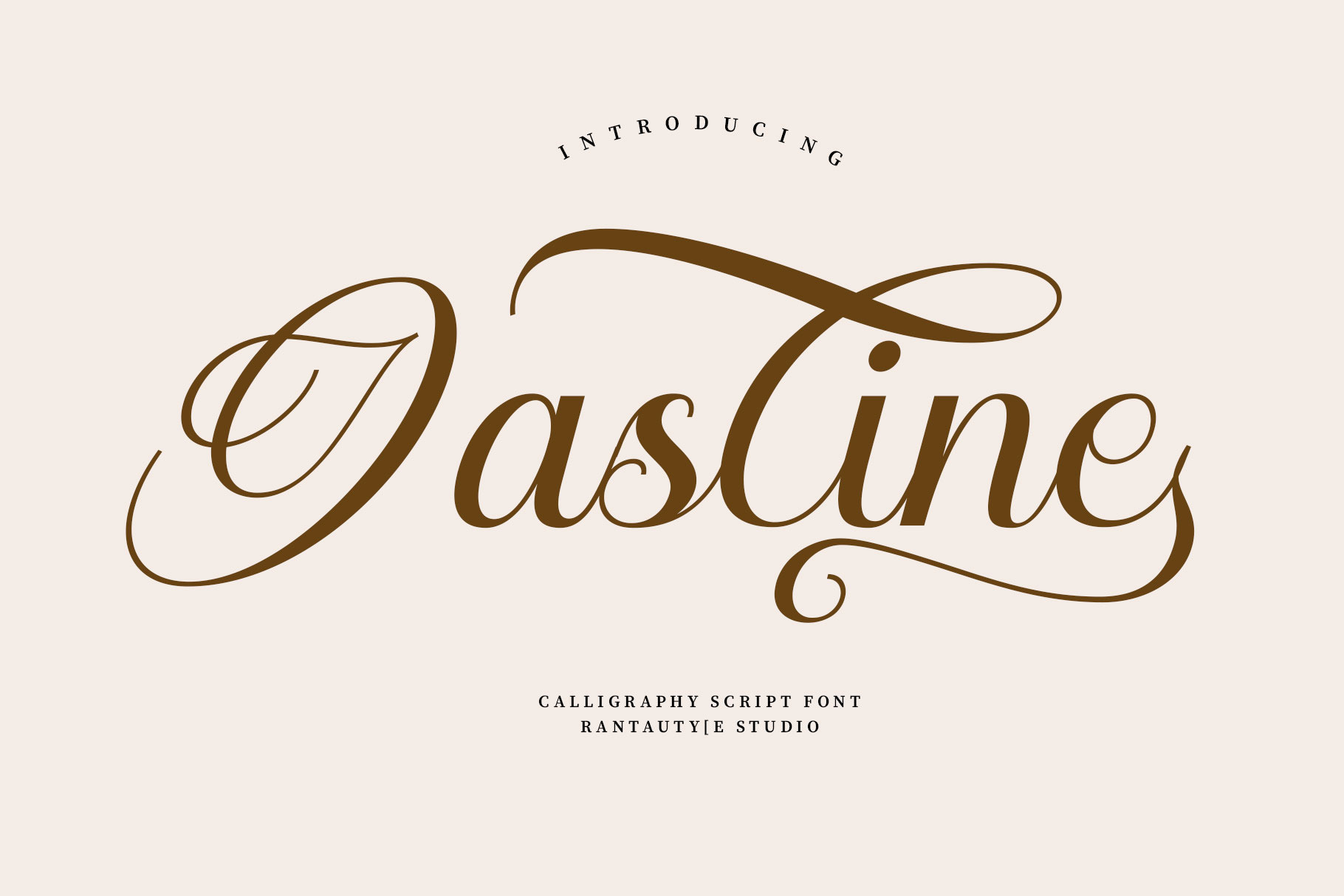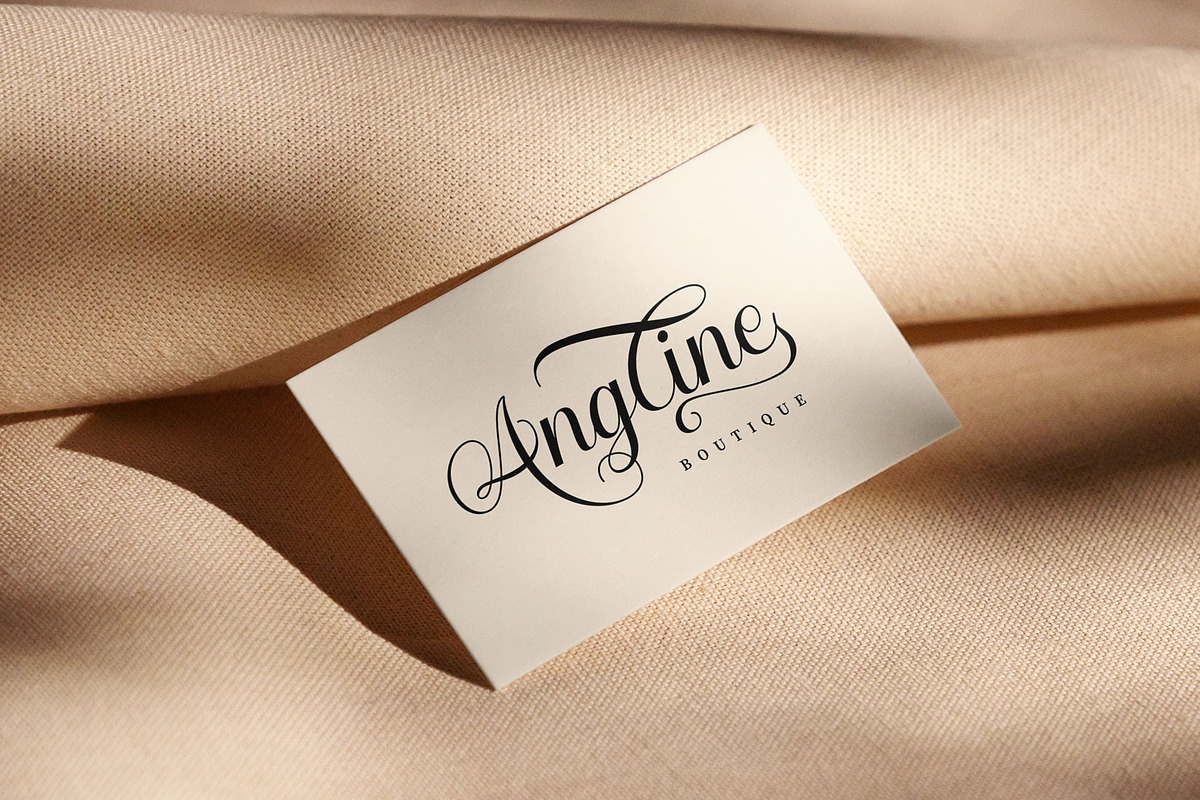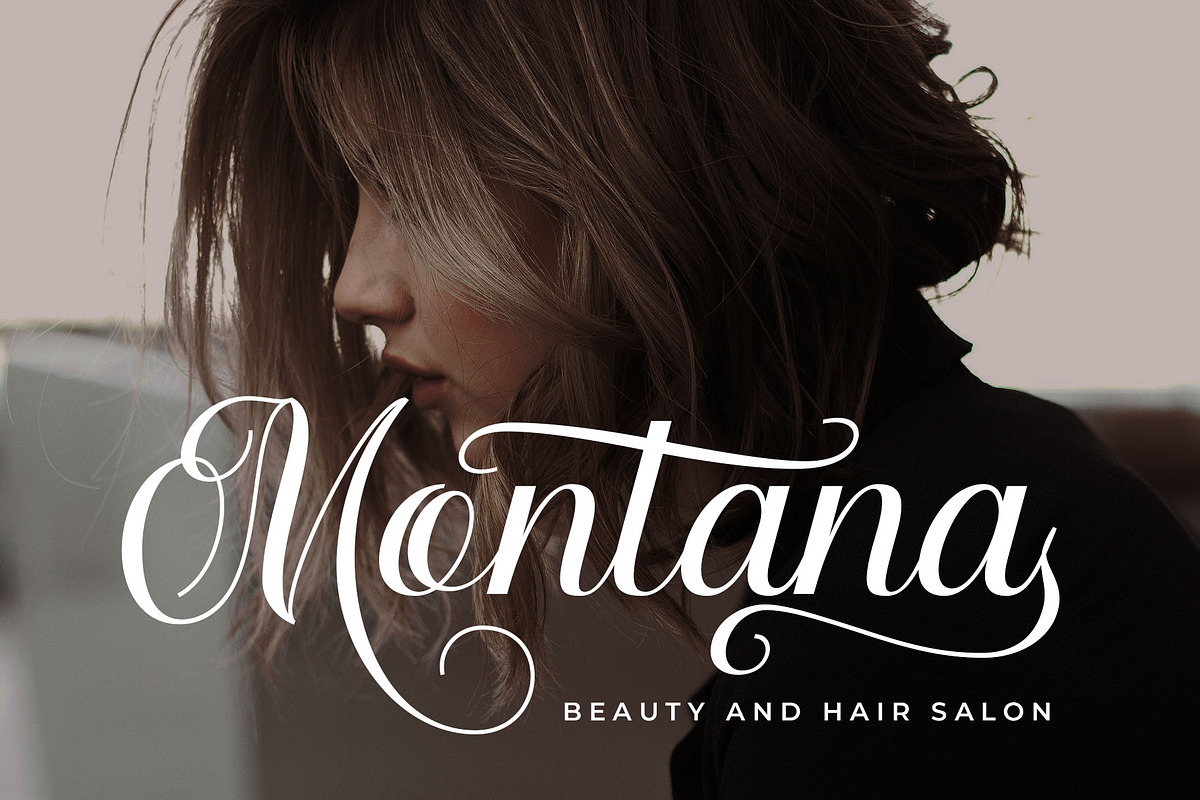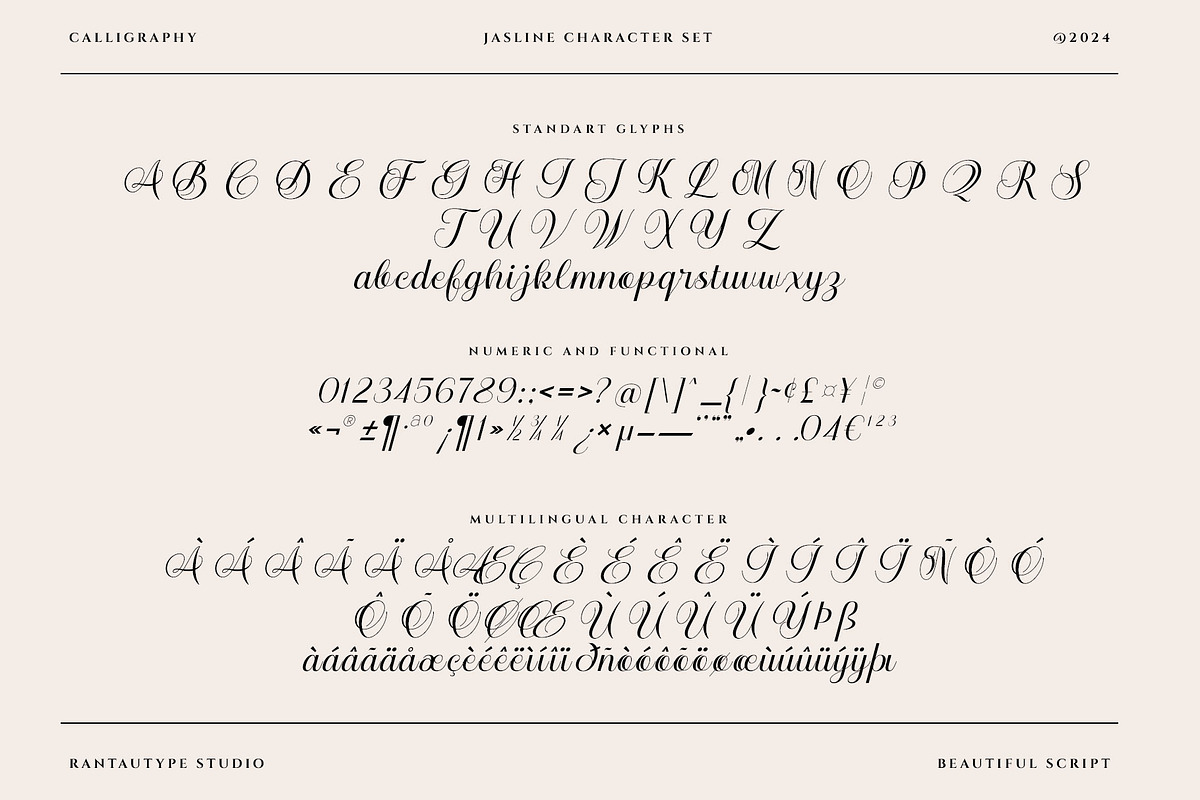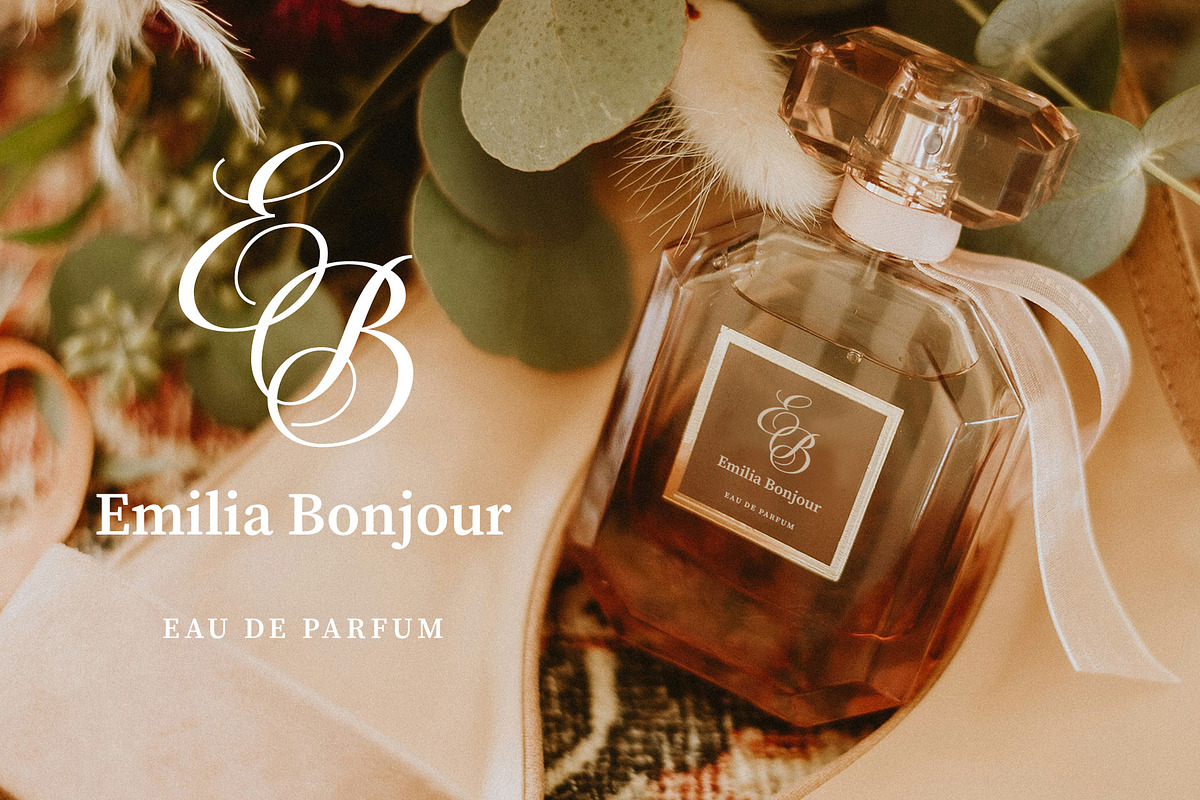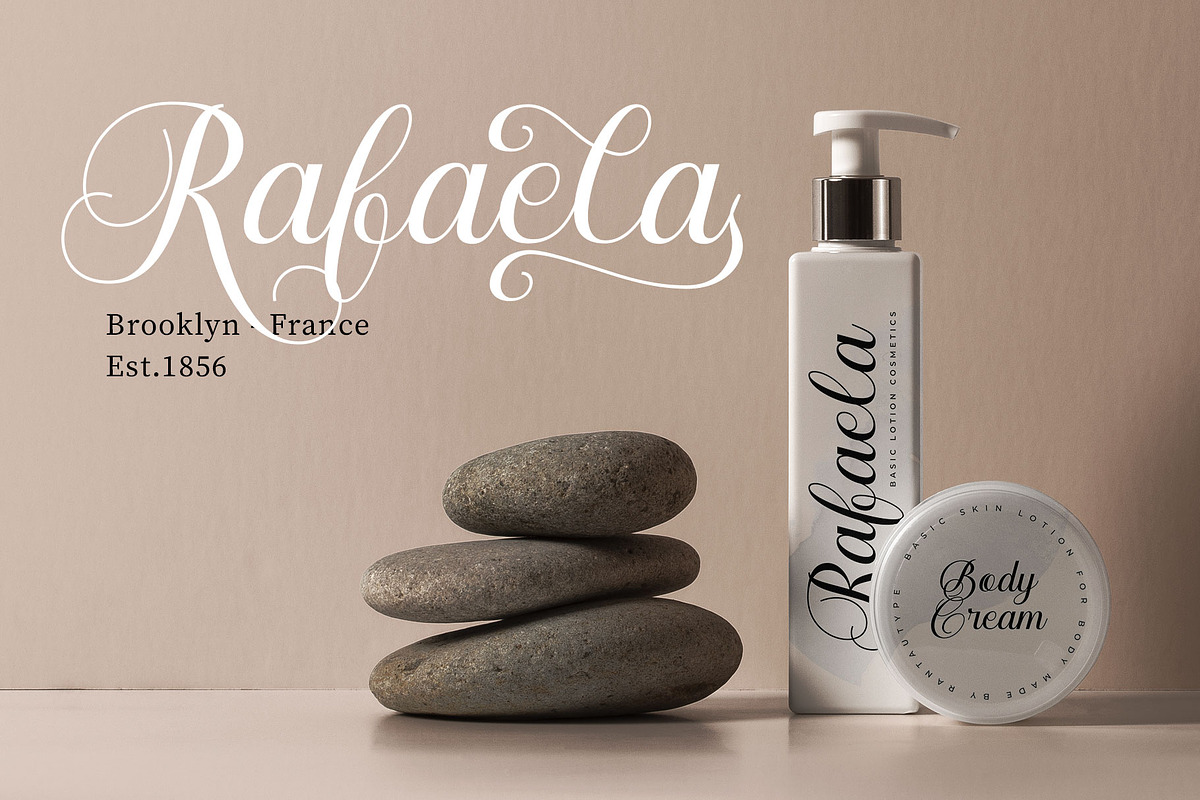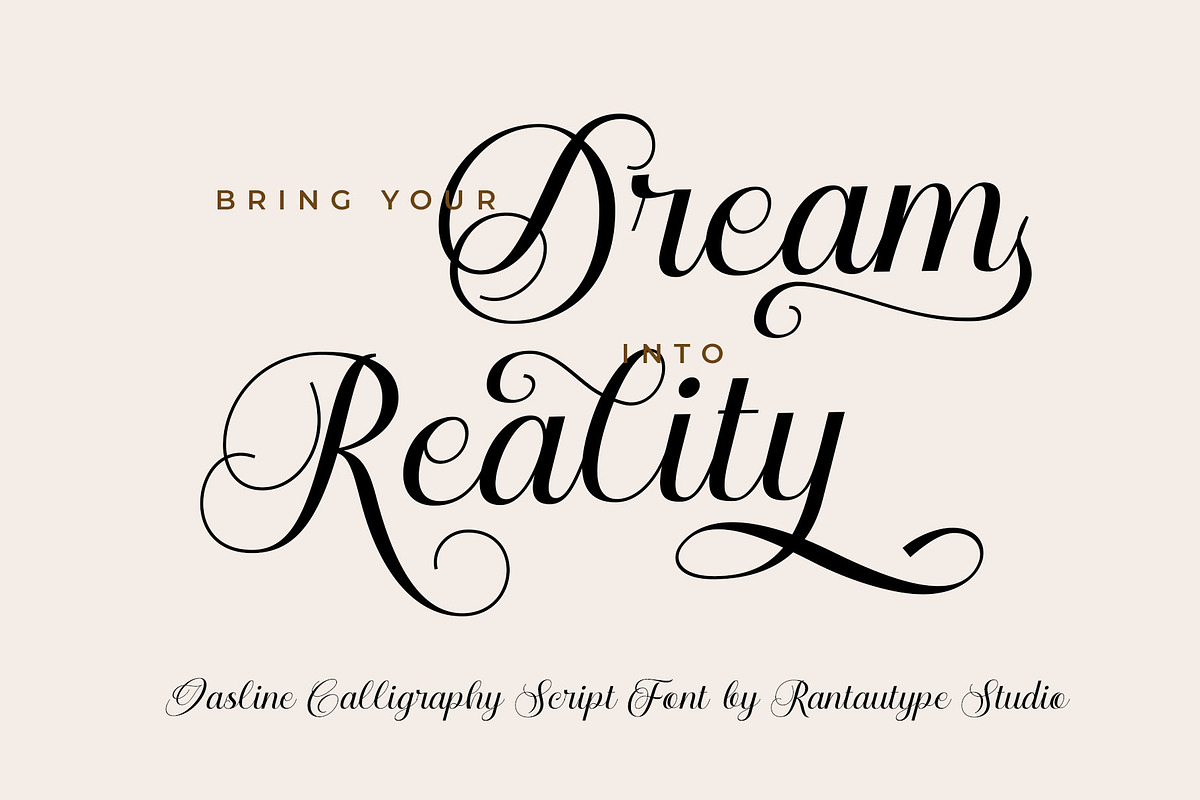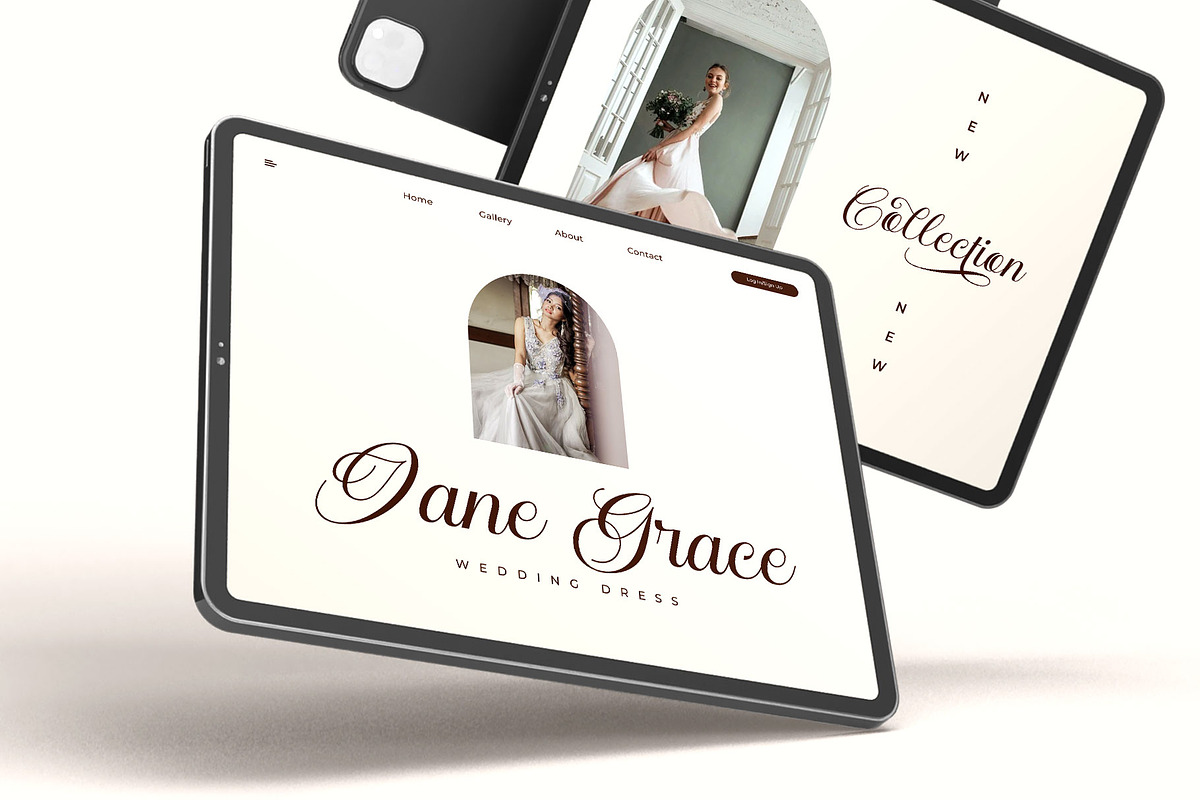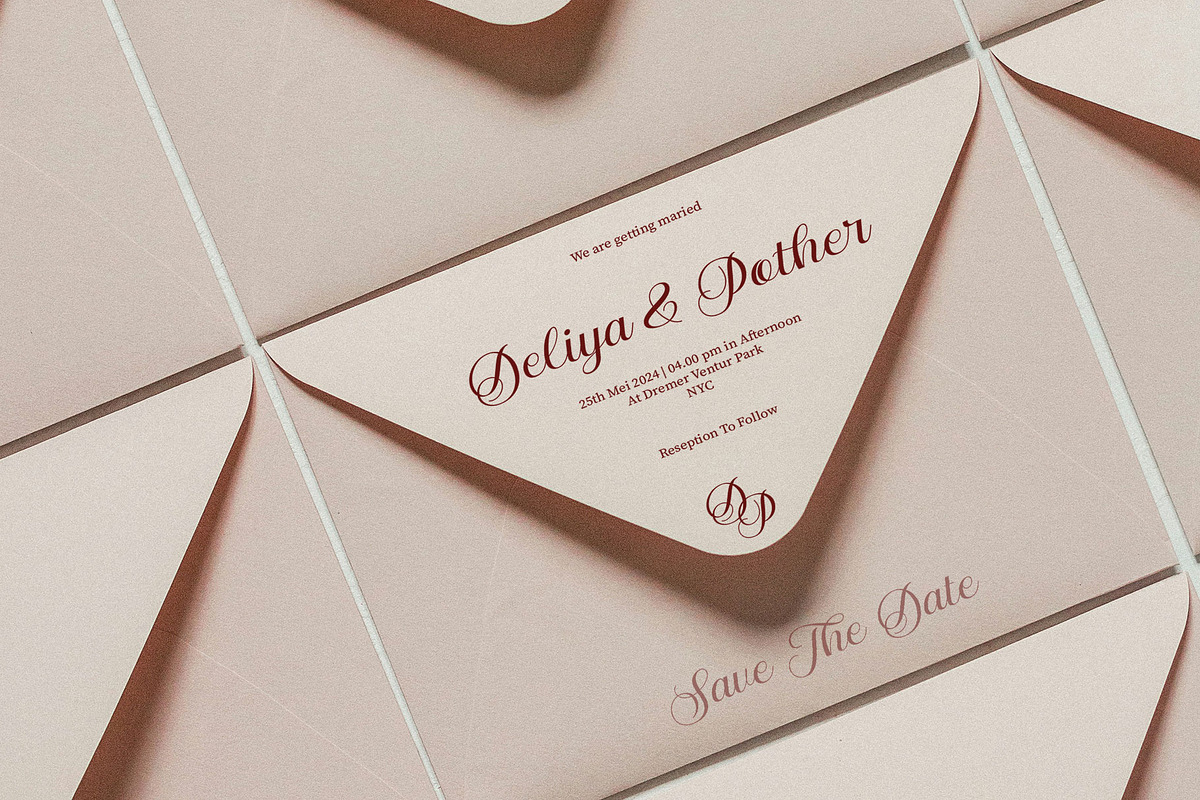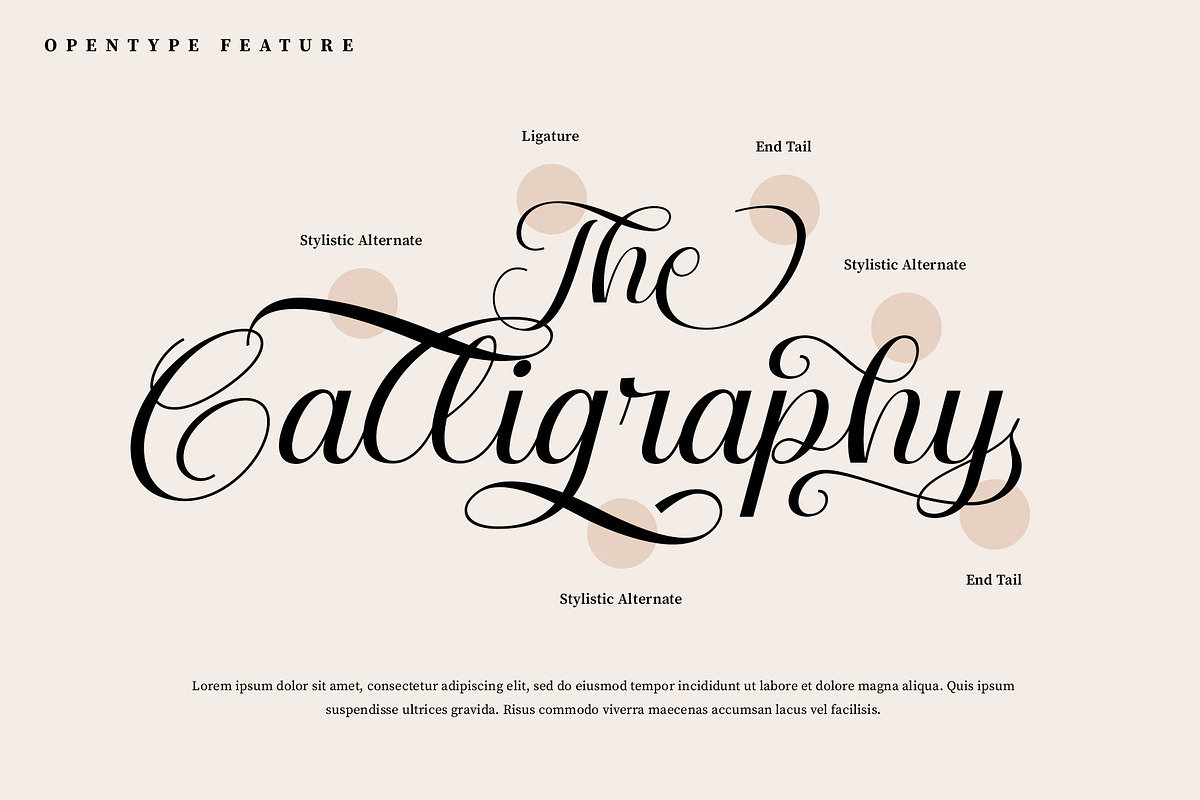
Jasline Calligraphy Script Font
Jasline is calligraphy script font with beautiful flow character. Inspire by wedding and feminine "jasline" bring grace and elegance for your design project.
Jasline is a beautiful choice for any creative endeavor, chic, lifestyle design such as logos, title, watermark on photography, cover, branding, display and magazine, wedding event, quotes, album cover, business card, corporate, business project and many other design project with calligraphy taste.
- Standart Glyphs
- Alternate and Ligature
Fonts include Multilingual Character for: Afrikaans, Albanian, Asu, Basque, Bemba, Bena, Breton, Chiga, Cornish, Dutch, English, Estonian, Filipino, Finnish, Friulian, Galician, Gusii, Indonesian, Irish, Italian, Kabuverdianu, Kalenjin, Kinyarwanda, Luo, Luxembourgish, Luyia, Machame, Makhuwa-Meetto, Makonde, Malagasy, Manx, Morisyen, North, Ndebele, Nyankole, Oromo, Portuguese, Quechua, Romansh, Rombo, Rundi, Rwa, Samburu, Sango, Sangu, Scottish, Gaelic, Sena, Shambala, Shona, Soga, Somali, Spanish, Swahili, Swedish, Swiss, German.